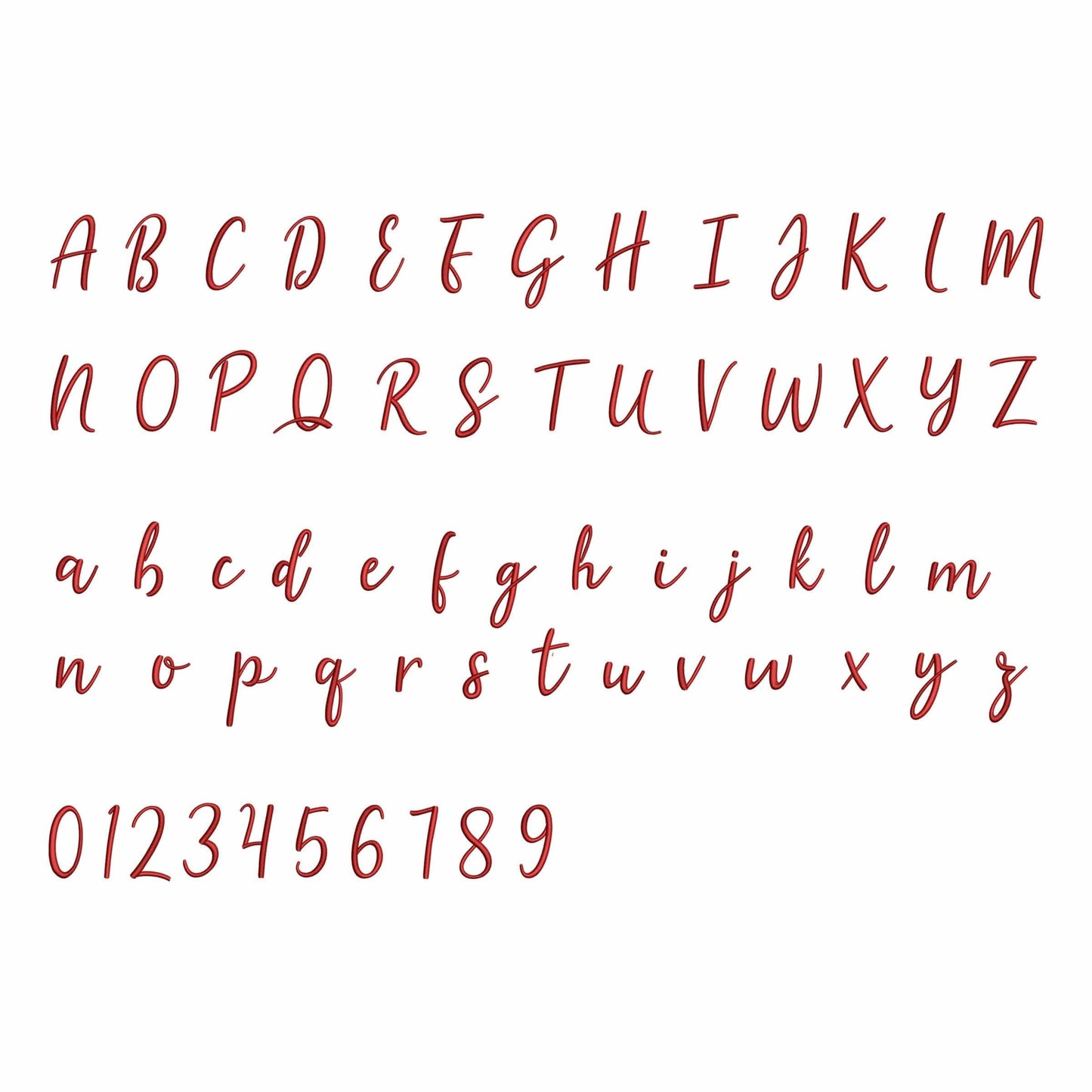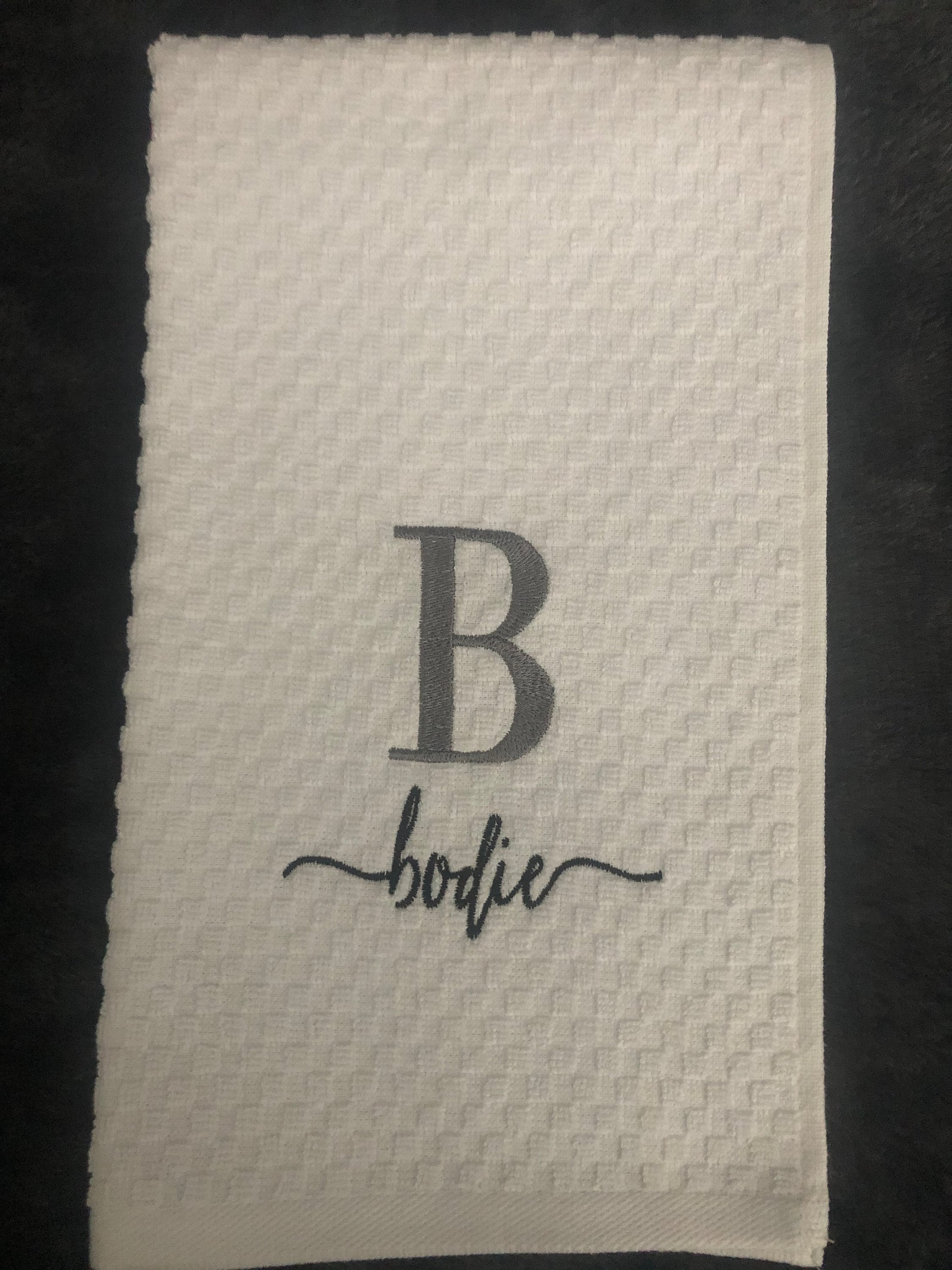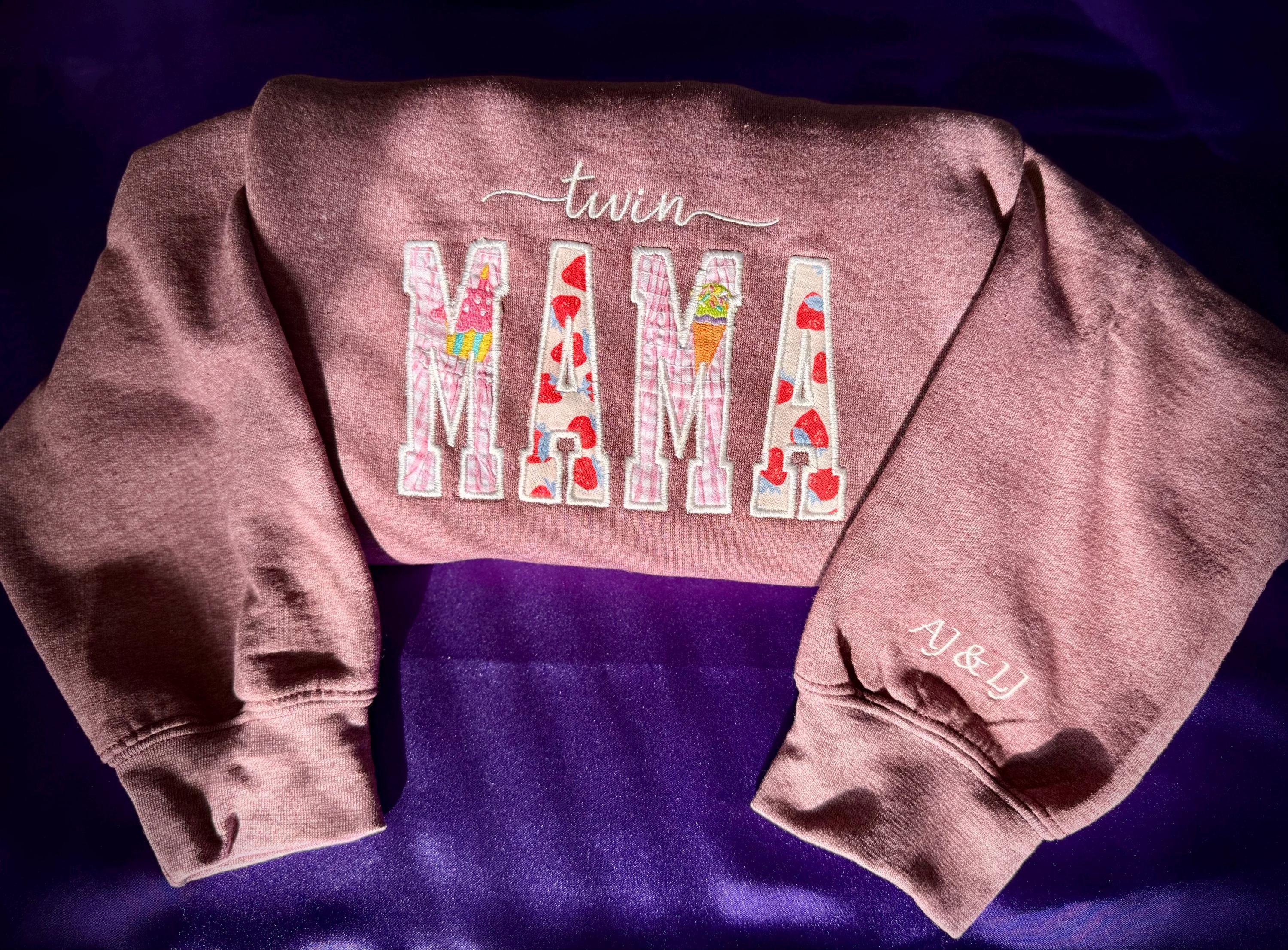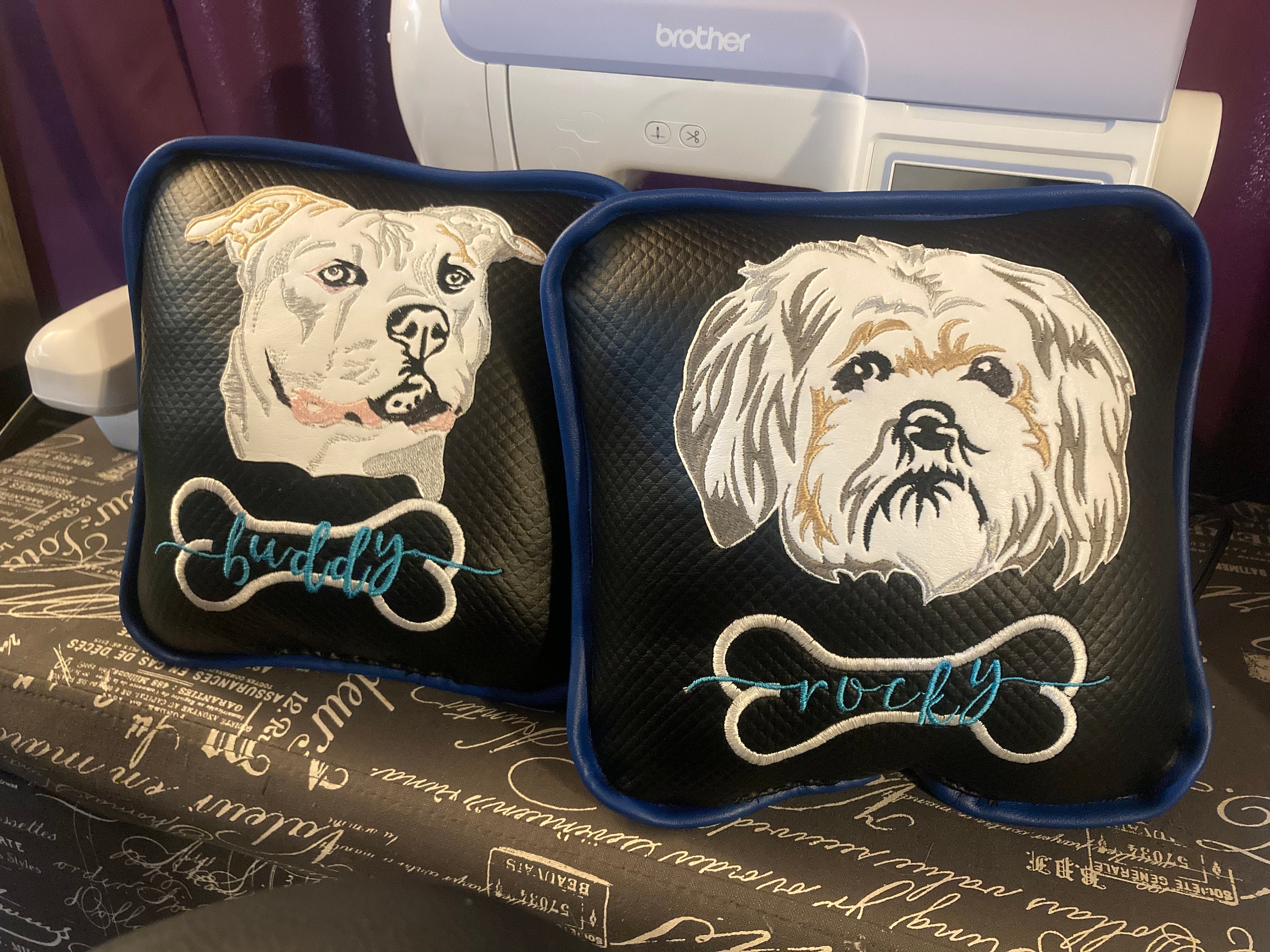
Hello - Embroidery font
This machine embroidery font works well for greeting shirts, towels, tote bags, gifts, and simple personalized embroidery.
A strong choice for makers who want friendly script lettering for everyday custom projects and gift-ready designs.